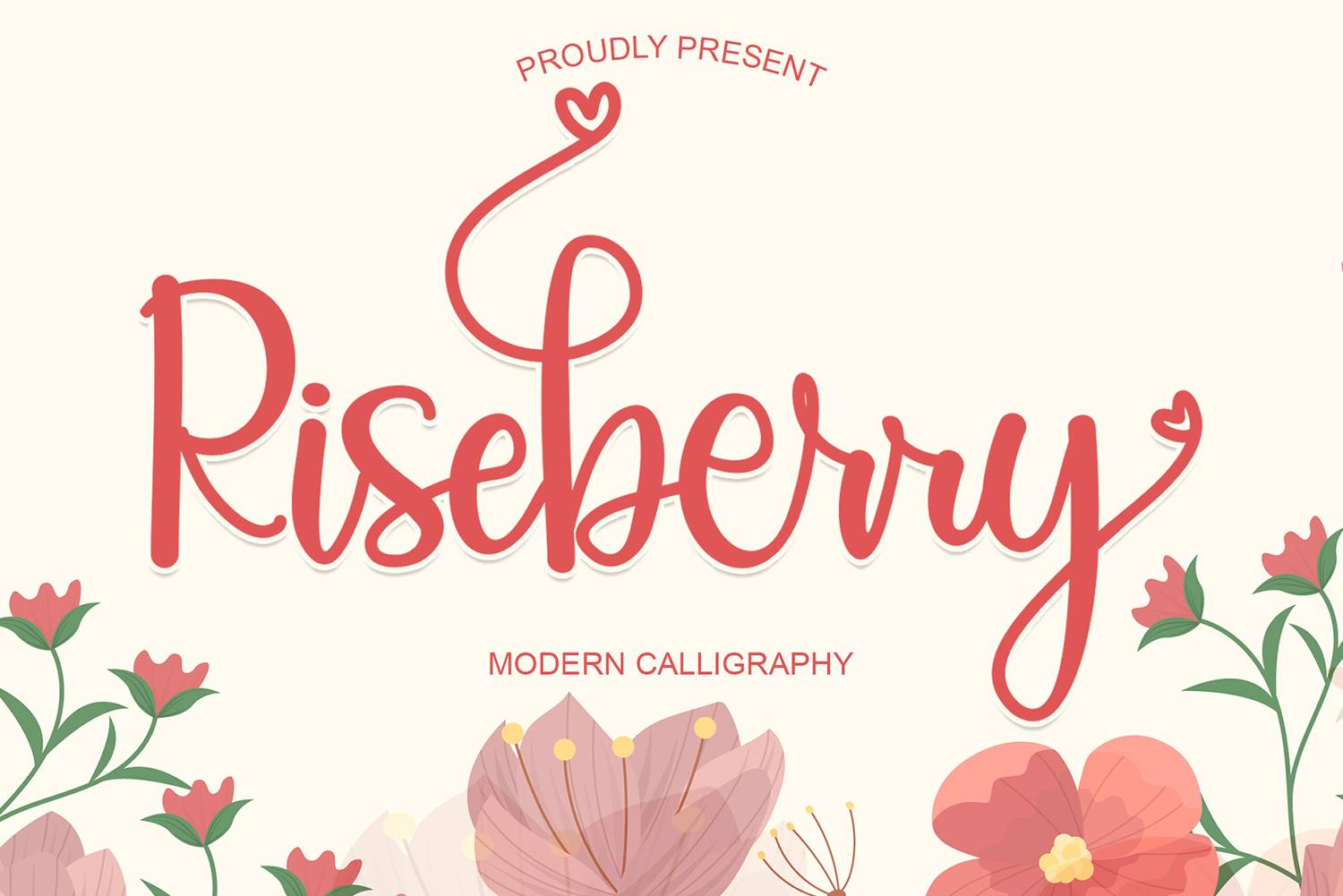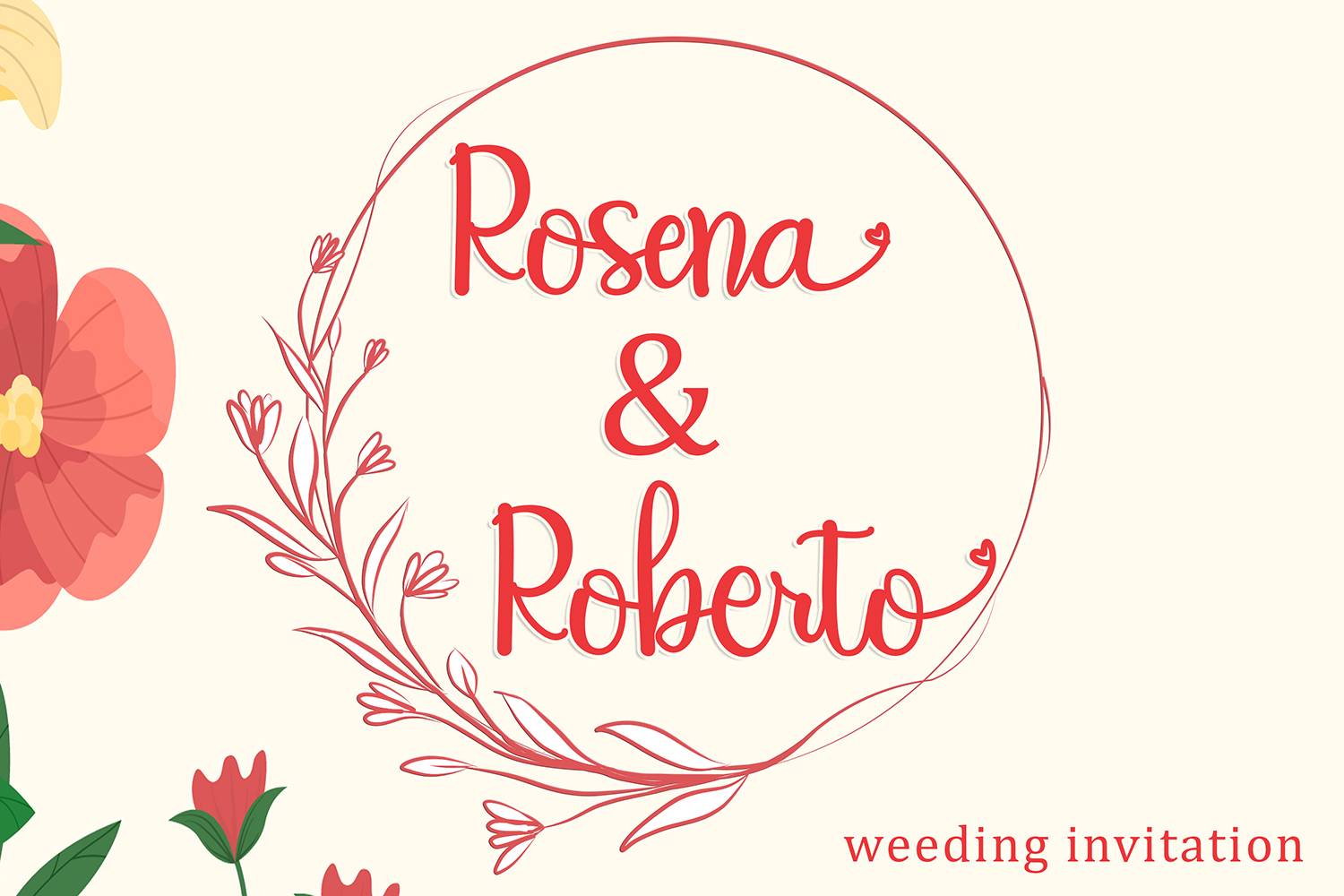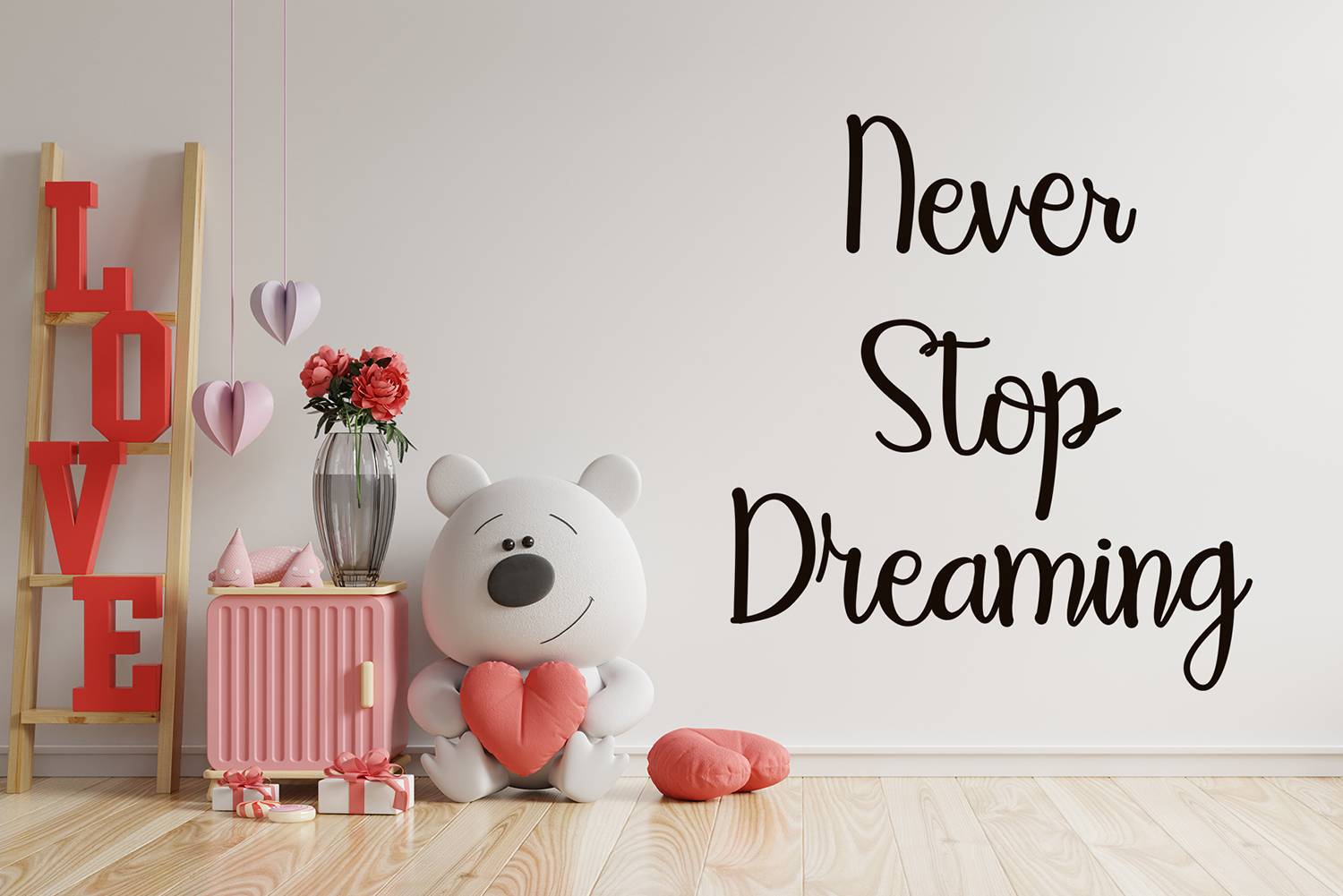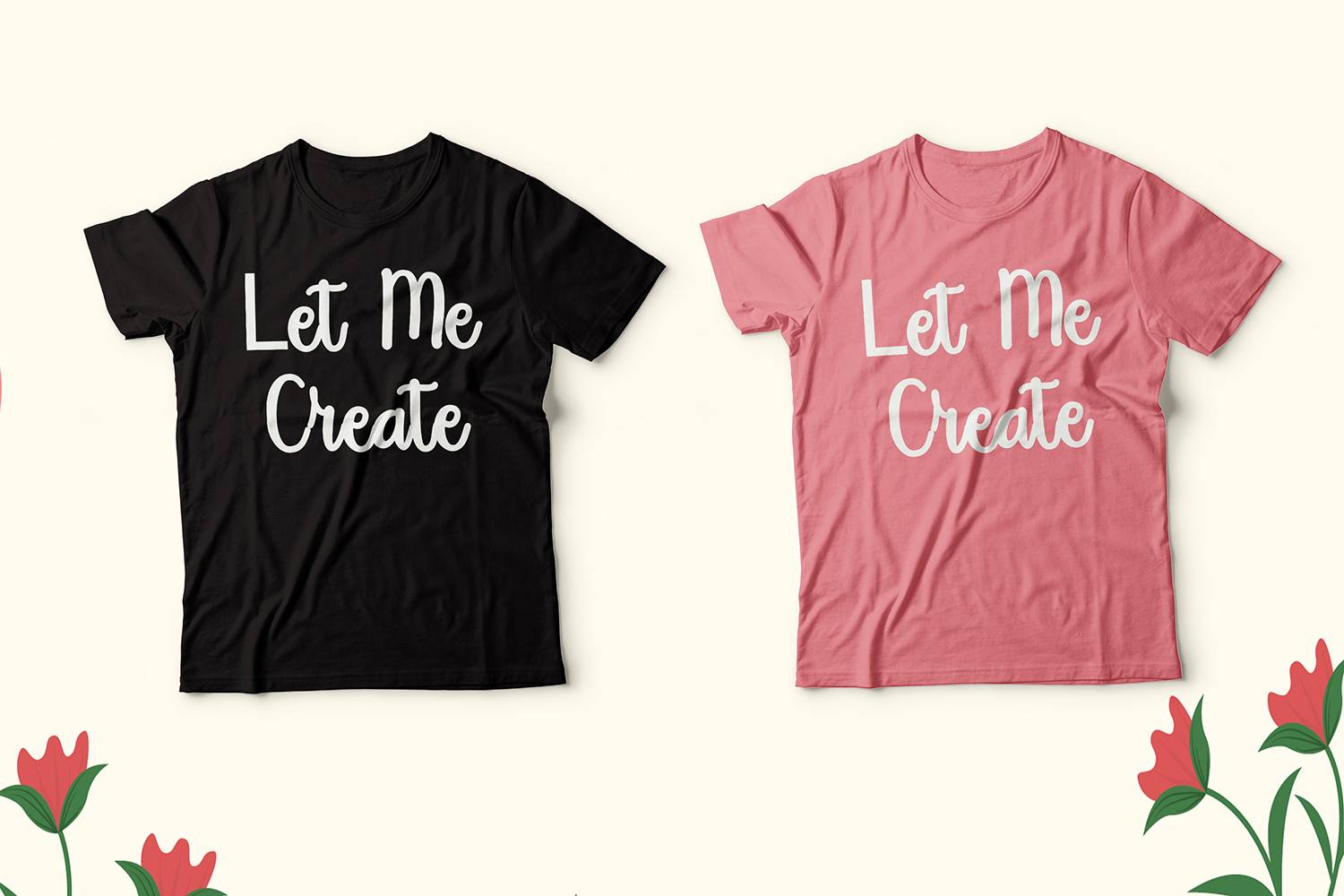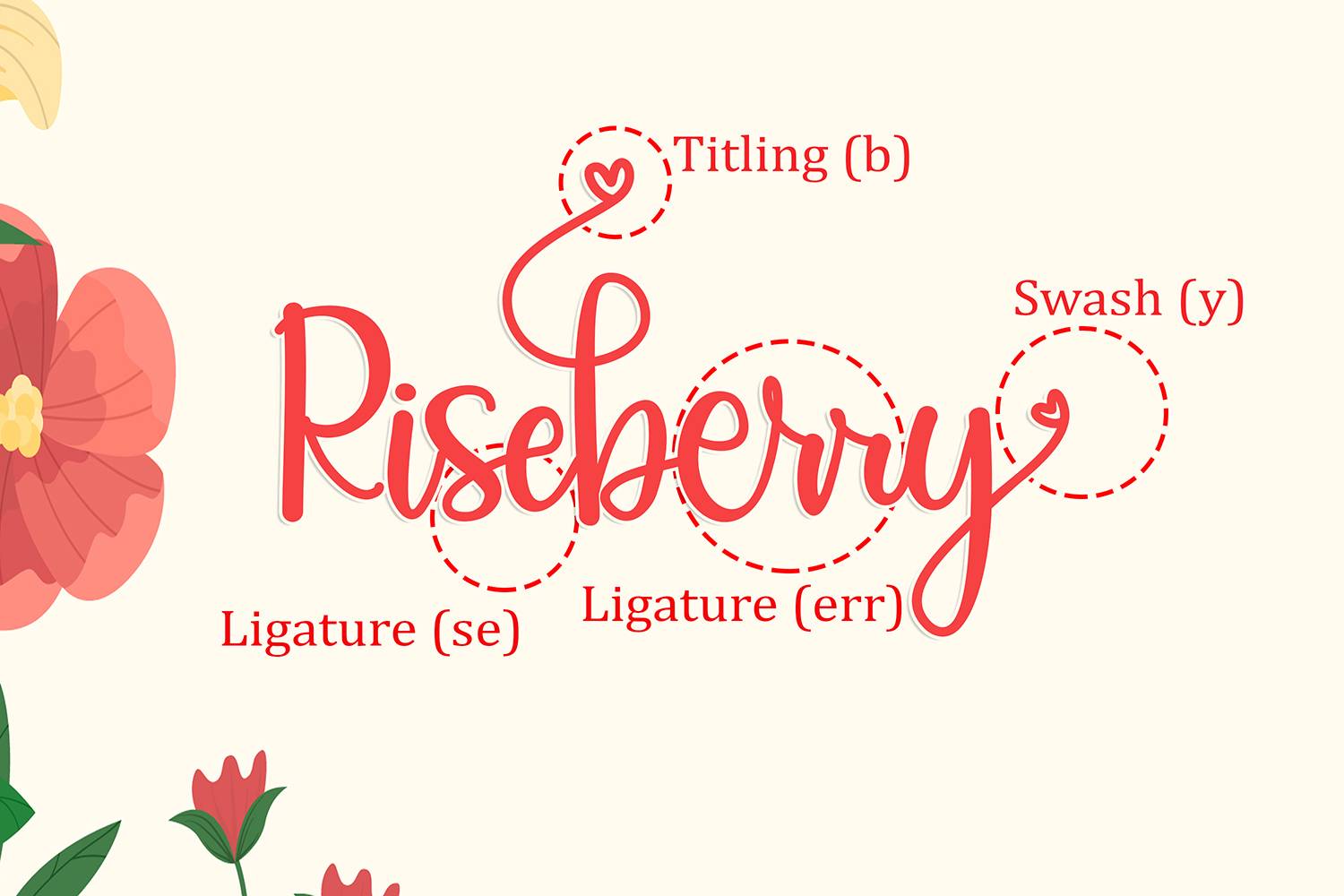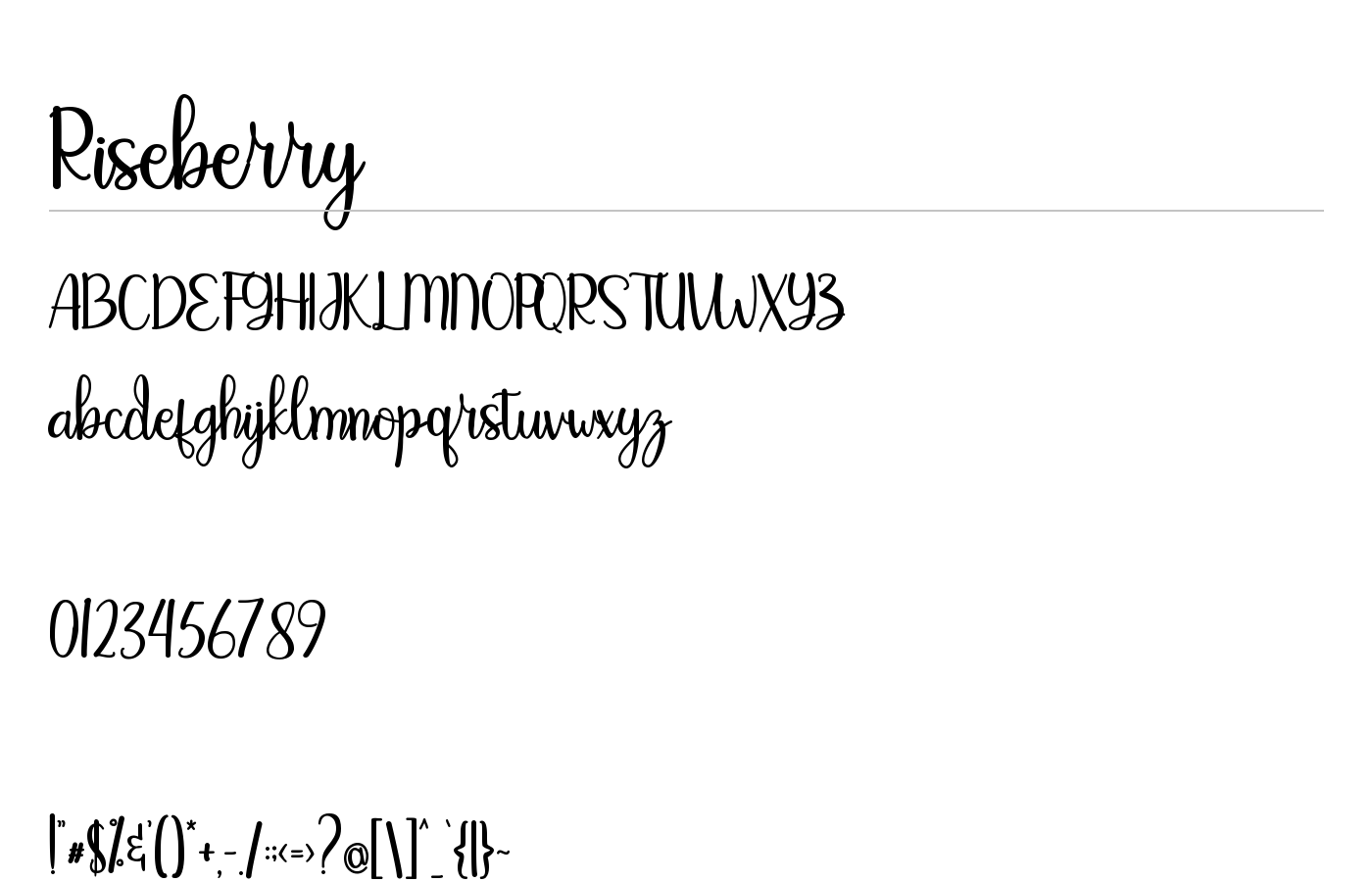
Riseberry is a playful and elegant handwritten script font characterized by its tall, narrow letterforms and smooth, fluid strokes. Its casual yet refined style makes it ideal for creative branding, invitations, and headline use where a personal, friendly touch is desired. This font shines in designs that seek warmth and personality without sacrificing readability or charm.
Riseberry Font
About Riseberry Font
| Font family | Riseberry Font |
| Release date | 2018-03-31 |
| Designer | Endri Sulistyawan |